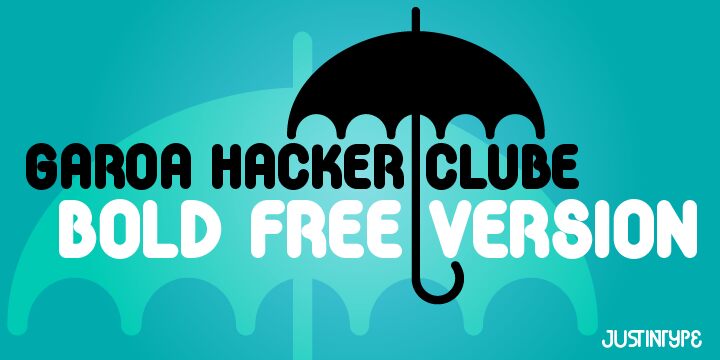
Garoa Hacker Clube Bold, designed by Tony de Marco and Diego Maldonado, is a free groovy display font with an oversized, almost inflatable silhouette. Broad rounded strokes dominate the lettering, punctuated by compact inner spaces and abrupt angled joins that make the forms feel playful and eccentric.
It can turn a festival identity into a piece of pop graphics, with enough heft for music posters, club merchandise, and youth-focused packaging. The bulbous contours also echo inflatable props and soft-edged cartoon illustration, so the lettering can become part of the artwork rather than sit apart as a neutral caption.